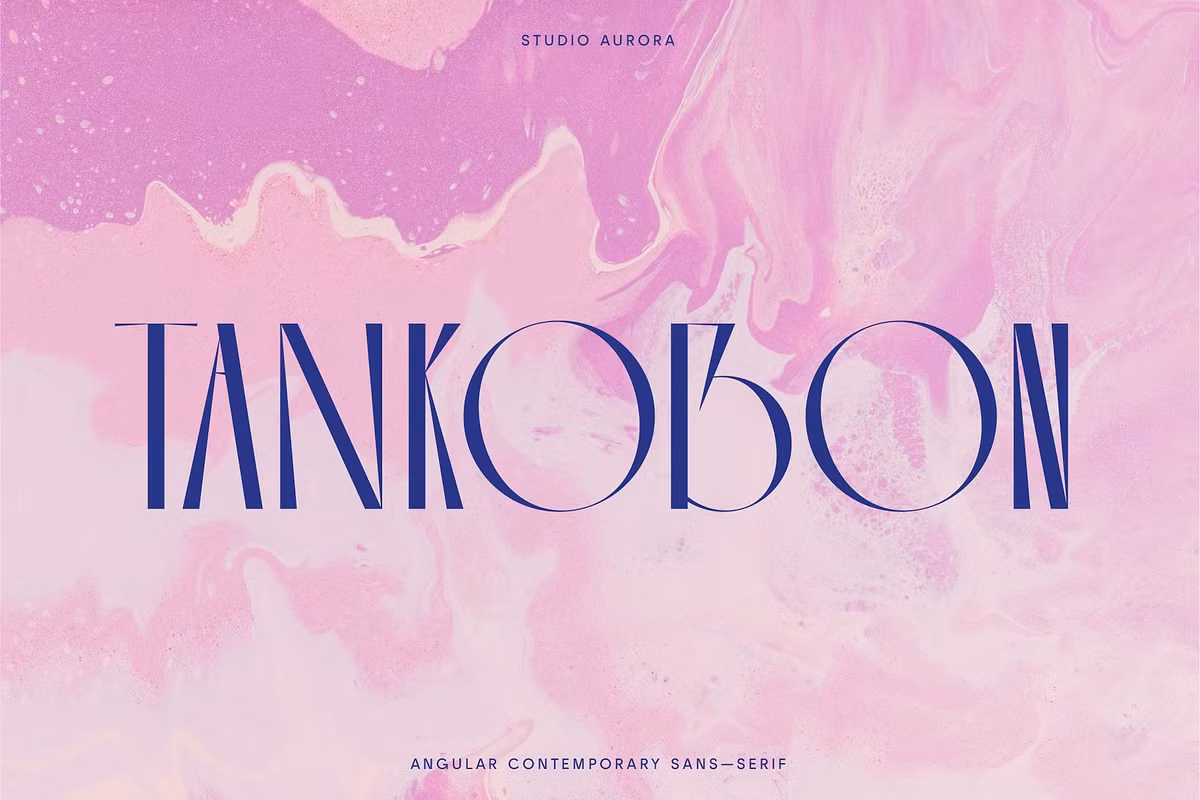
Tankobon – Angular Display Font is perfect for anime-inspired branding, manga publication designs, Japanese-influenced projects, gaming interface typography, pop culture event promotions, comic book titles, modern entertainment campaigns, bold poster design, dynamic advertising materials, creative media projects, cultural festival graphics, and striking display applications.
Tankobon – Angular Display Font is exciting because it captures the dynamic energy and bold aesthetic of Japanese manga culture through its sharp angular letterforms that embody the precision, creativity, and visual impact that defines contemporary Japanese graphic design and pop culture expression. This striking typeface features distinctive geometric angles with manga-inspired details that reflect the bold storytelling and artistic innovation found in Japanese visual media. The font's angular aesthetic creates instant connections with audiences who appreciate Japanese design aesthetics, pop culture creativity, and the distinctive visual language of modern entertainment media.
Tankobon – Angular Display Font includes comprehensive font families: Regular Angular Style, Bold Dynamic Weight, Light Sharp Touch, Medium Geometric Balance, Italic Slanted Edge, Condensed Compact Format, Extended Wide Angle, Ultra Bold Statement, Thin Line Version, and Special Japanese Symbols, providing complete solutions for manga-inspired and angular design projects that demand geometric precision and Japanese cultural authenticity.
This dynamic typography solution transforms ordinary communications into bold angular experiences through its authentic Japanese-inspired aesthetic and geometric design language. Tankobon – Angular Display Font Free Download enables designers and pop culture brands to access premium angular typography that instantly adds dynamism, cultural authenticity, and geometric appeal to any creative project. The font's carefully crafted angular elements ensure authentic manga character while maintaining excellent readability and distinctive Japanese presence.
Gaming companies, entertainment brands, and pop culture businesses trust Tankobon – Angular Display Font for its ability to communicate creativity, cultural authenticity, and dynamic energy to audiences seeking genuine Japanese-inspired experiences and manga aesthetics. The typeface's angular construction performs exceptionally well across various applications, from intimate manga communications to large-scale entertainment campaigns. Its extensive character support includes multilingual capabilities and Japanese-inspired design elements that enhance authentic pop culture brand presentations.
The creative inspiration behind Tankobon – Angular Display Font draws from Japanese manga publishing, anime culture, and the distinctive angular aesthetics that define contemporary Japanese graphic design and visual storytelling. This culture-focused approach creates a font that feels genuinely Japanese while maintaining contemporary relevance across different pop culture contexts and entertainment brand expressions.
Whether creating gaming brand identities, manga publication materials, or pop culture marketing campaigns, this angular display font delivers exceptional results that capture the essence of Japanese design innovation and manga creativity. Download Tankobon – Angular Display Font today and discover how premium Japanese-inspired typography can transform your design projects into dynamic expressions of manga culture, geometric precision, and the bold creativity that defines the most authentic Japanese entertainment and pop culture communications.